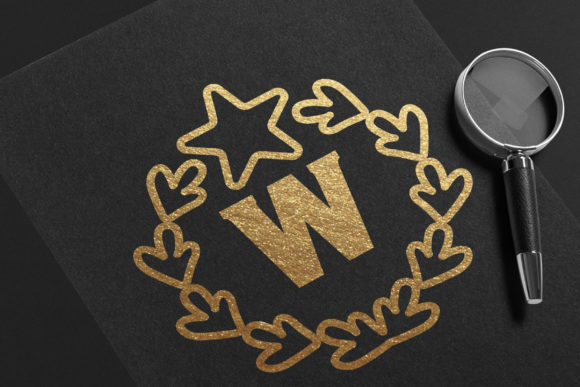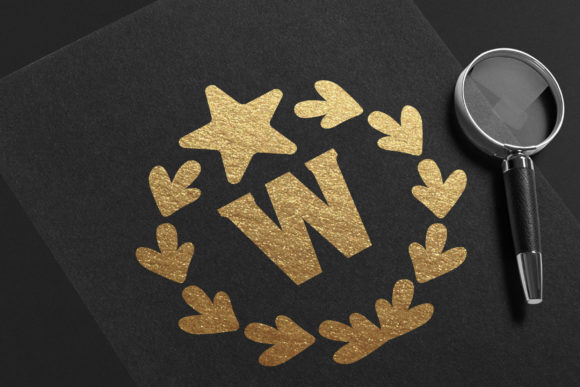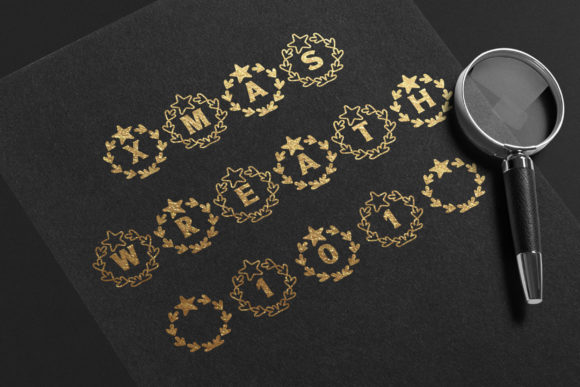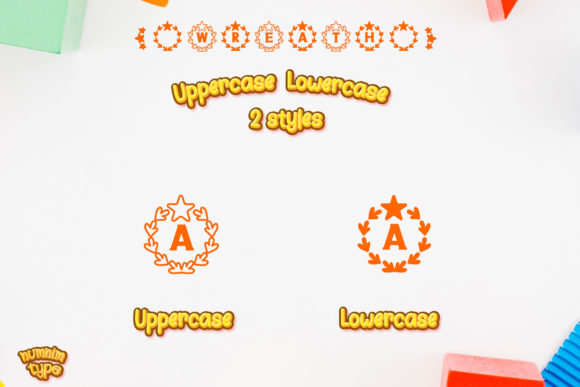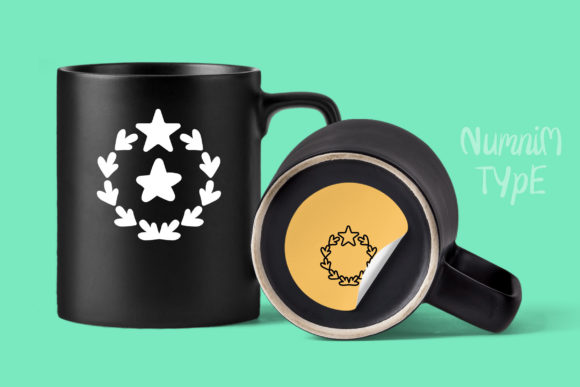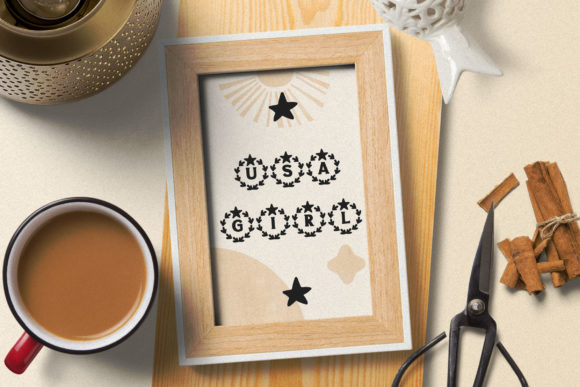
Introducing the Christmas Wreath Font: A Fun and Festive Decorative Font for Your Holiday Projects
Are you looking for a unique and playful font to add a bold accent to your Christmas Day and winter-related projects? Look no further than the Christmas Wreath Font! This cool and uniquely designed decorative font is perfect for designers and crafters who want to add a touch of holiday cheer to their work.
What is the Christmas Wreath Font?
The Christmas Wreath Font is a decorative font that features letters shaped as Christmas wreaths. Each character is fun and playful, making it perfect for adding a festive touch to your designs. The font is suitable for a variety of projects, including Christmas cards, event invitations, stickers, mugs, t-shirts, ornaments, and more.
Key Features of the Christmas Wreath Font
- Unique and Playful Design: Each character in the Christmas Wreath Font is designed to look like a Christmas wreath, making it a fun and playful addition to your designs.
- Suitable for Christmas and Winter Projects: The font is perfect for Christmas Day and winter-related projects, including holiday cards, invitations, and decorations.
- Versatile: The Christmas Wreath Font can be used for a variety of projects, including stickers, mugs, t-shirts, ornaments, and more.
Uses for the Christmas Wreath Font
The Christmas Wreath Font is a versatile font that can be used for a variety of projects, including:
- Christmas Cards: Add a festive touch to your holiday cards with the Christmas Wreath Font.
- Event Invitations: Create fun and playful invitations for holiday parties and events.
- Stickers: Use the font to create festive stickers for gifts, decorations, and more.
- Mugs and T-Shirts: Add a holiday touch to your mugs and t-shirts with the Christmas Wreath Font.
- Ornaments: Create custom ornaments with the font for a unique and personalized holiday decoration.
Why Choose the Christmas Wreath Font?
There are many reasons to choose the Christmas Wreath Font for your holiday projects. Here are a few:
- Unique Design: The font features a unique and playful design that will set your projects apart from the rest.
- Versatility: The font can be used for a variety of projects, making it a great addition to your font library.
Tips for Using the Christmas Wreath Font
Here are a few tips for using the Christmas Wreath Font in your projects:
- Experiment with Different Sizes: Try using the font in different sizes to see how it looks in various contexts.
- Combine with Other Fonts: Combine the Christmas Wreath Font with other fonts to create a unique and interesting look.